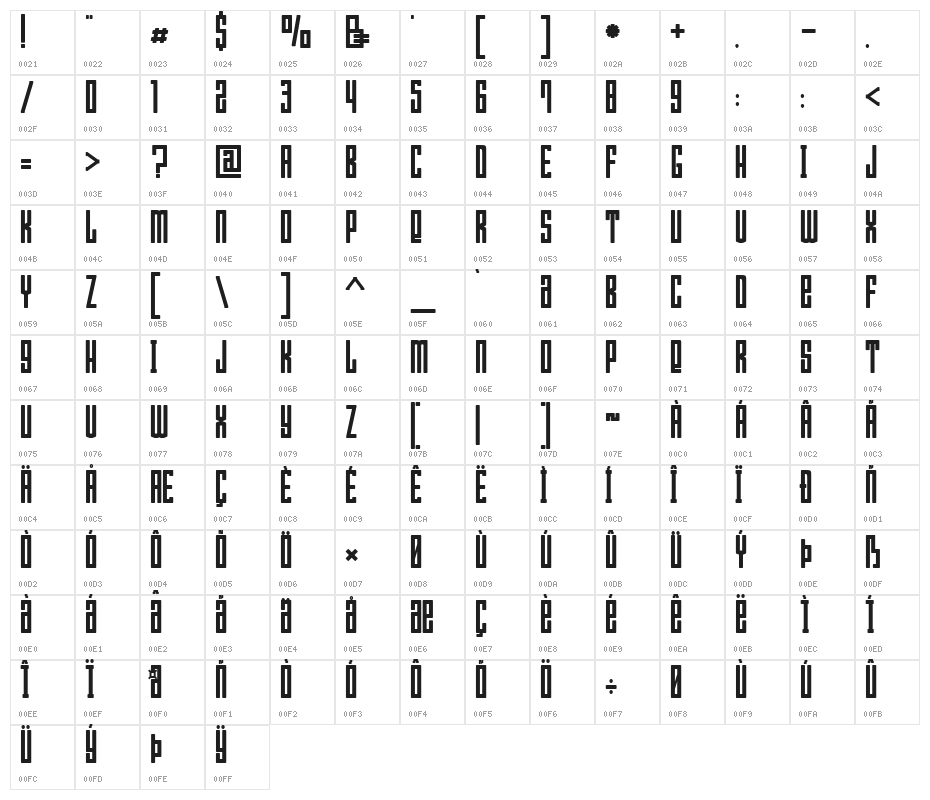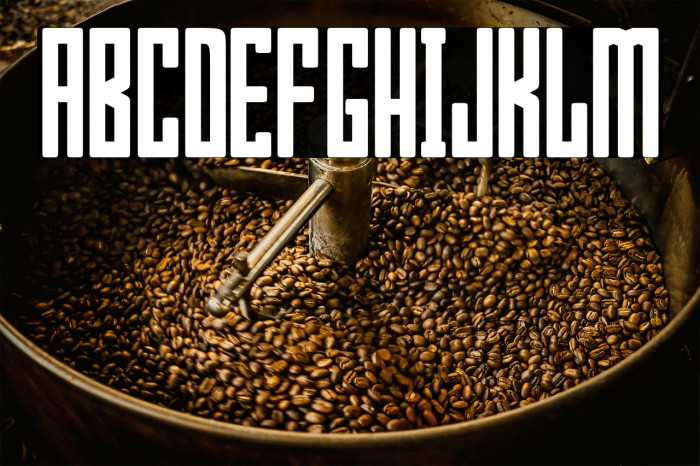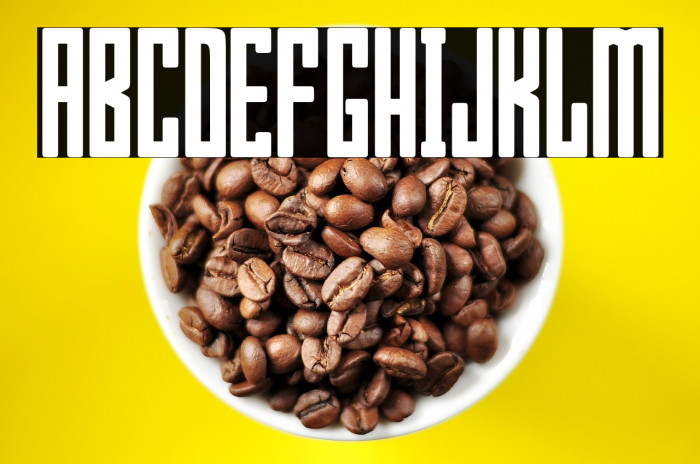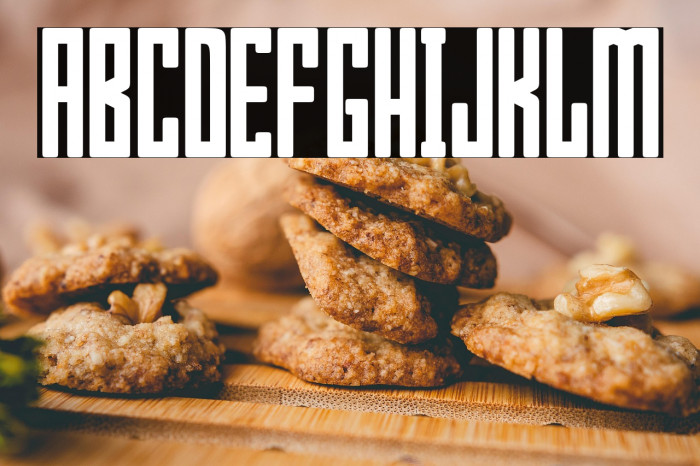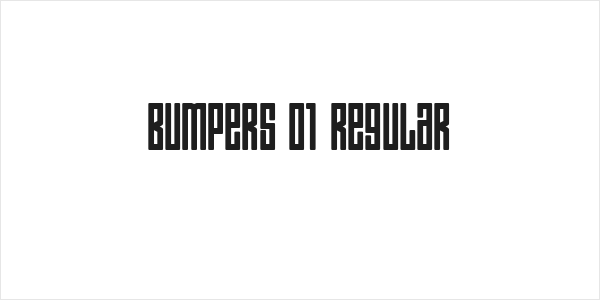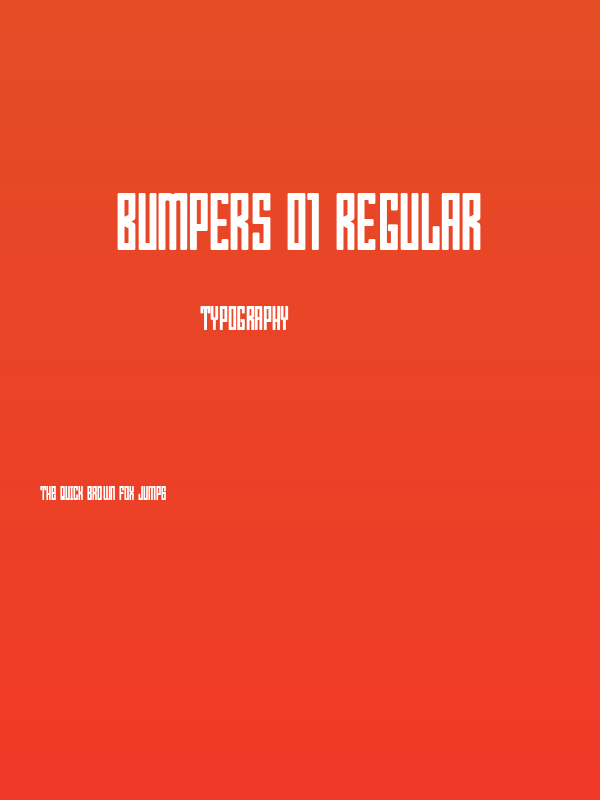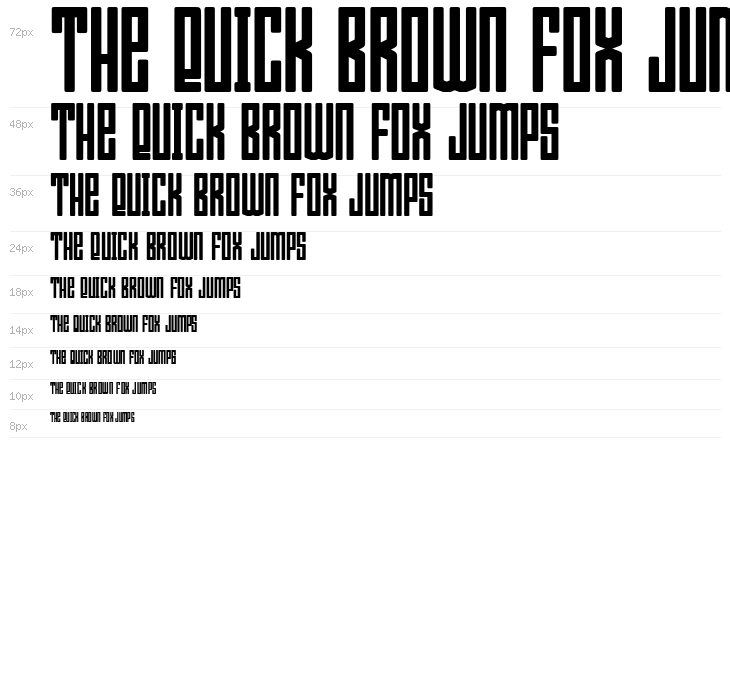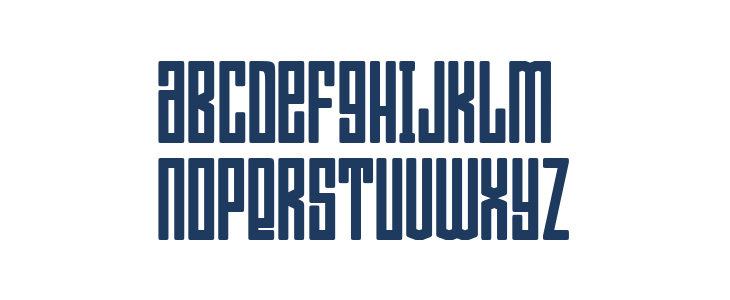
Bumpers 01 Regular Font
Bumpers 01 Regular Description
This font features a bold and geometric design with a strong presence. The characters are tall and narrow, giving a condensed appearance. The strokes are uniform in thickness, creating a low contrast between the lines. The overall style is modern and industrial, suitable for making a statement. The uppercase and lowercase letters maintain a consistent height, enhancing the uniformity of the typeface. The numbers and special characters follow the same design principles, ensuring a cohesive look across all elements.
| Proposed Projects | Ideal for posters, headlines, branding, and any design requiring a strong visual impact. |